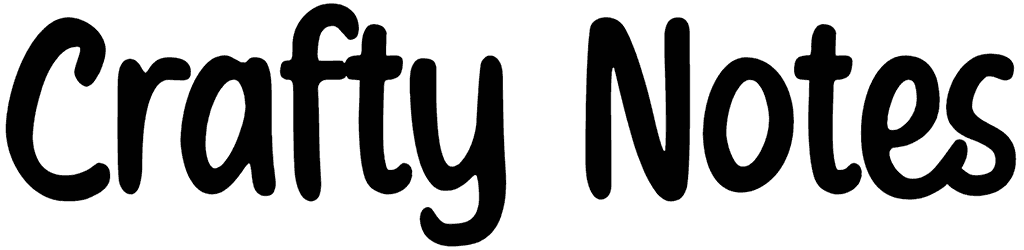
Crafty Notes Font
When it comes to giving your artwork a human effect, you must use a handwriting font. Crafty Notes can be your first choice to give your content a cute and adorable vibe that would work brilliantly with birthday cards, book covers, advertisements, and packaging.